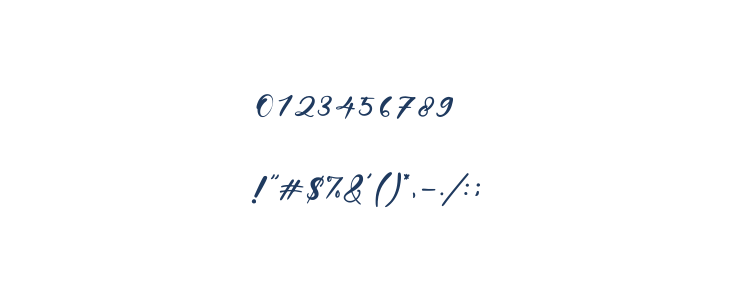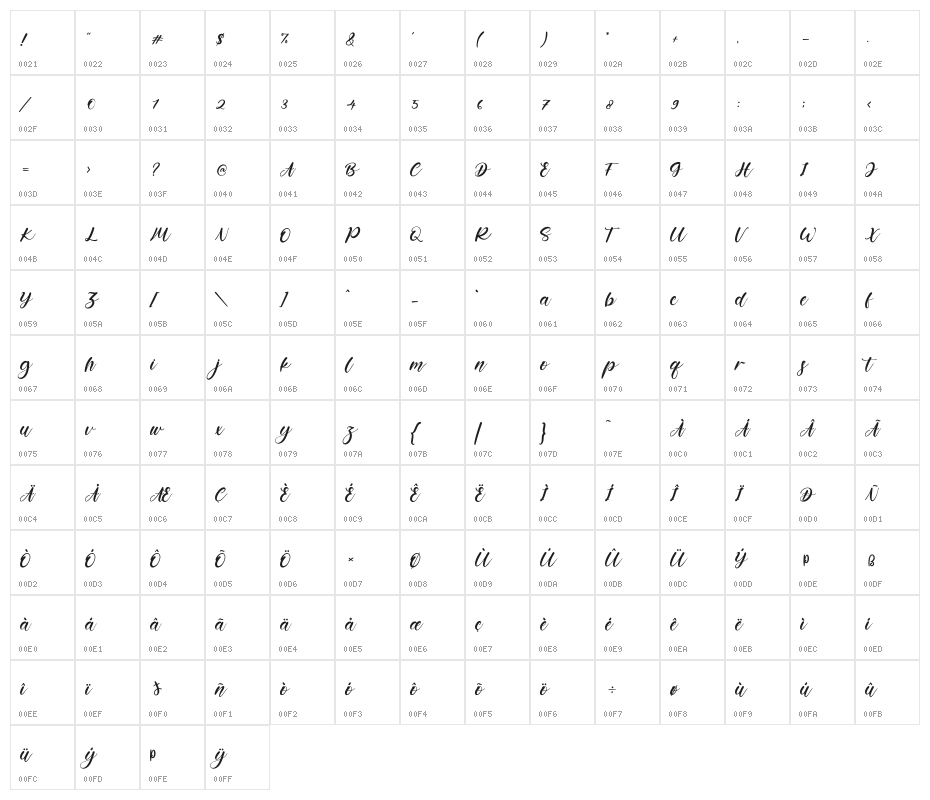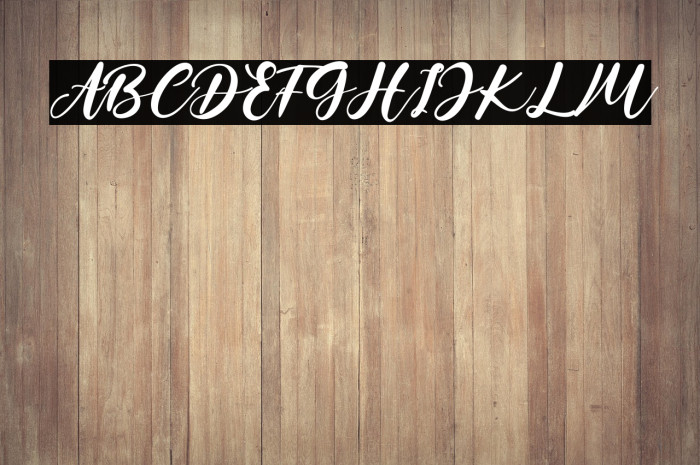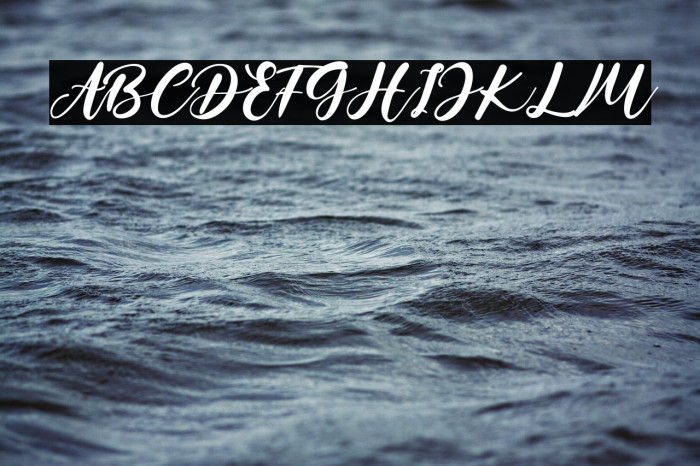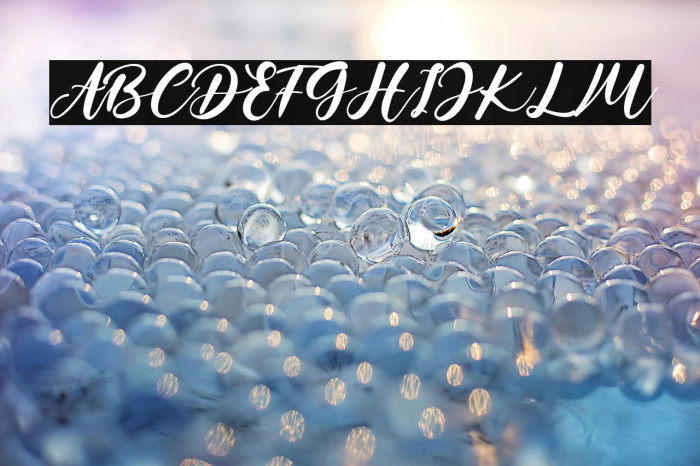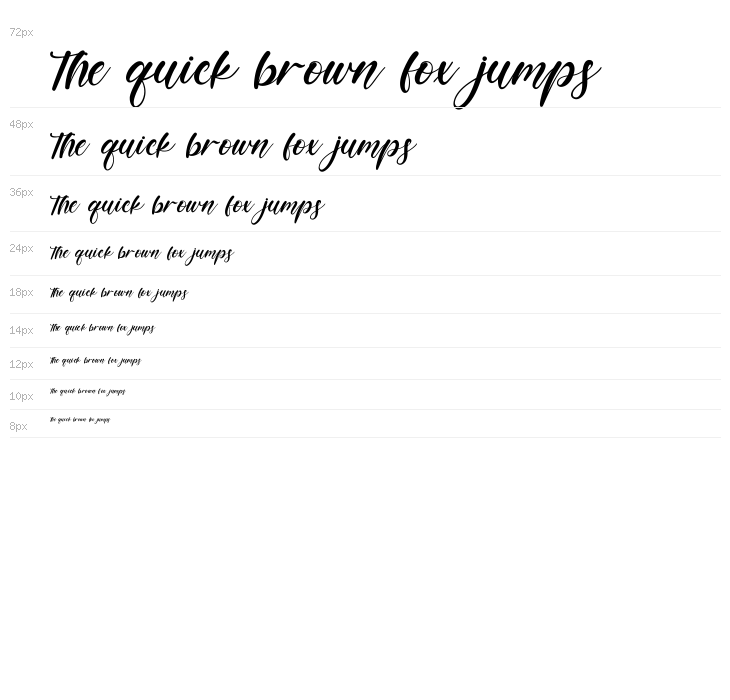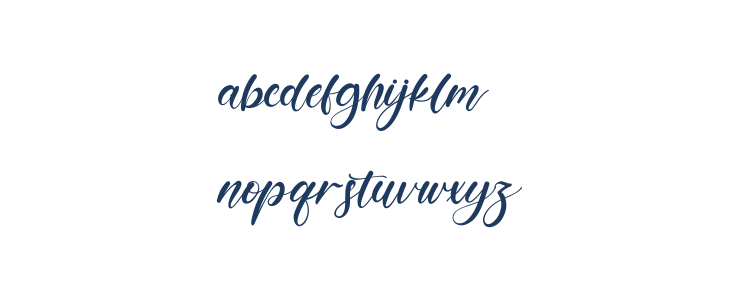
LillianMay Font
LillianMay Description
This elegant script font features fluid, cursive strokes that convey a sense of sophistication and grace. The characters are intricately designed with smooth curves and delicate flourishes, making it ideal for formal invitations, branding, and decorative purposes. The uppercase letters are bold and prominent, while the lowercase letters maintain a consistent flow, enhancing readability. The numerals and special characters are crafted with the same attention to detail, ensuring a cohesive look across all text elements. This font's artistic style is perfect for adding a touch of elegance to any project.
| Proposed Projects | Ideal for wedding invitations, luxury branding, greeting cards, and decorative signage. |